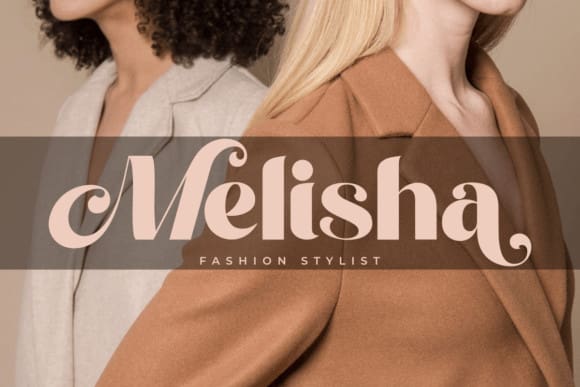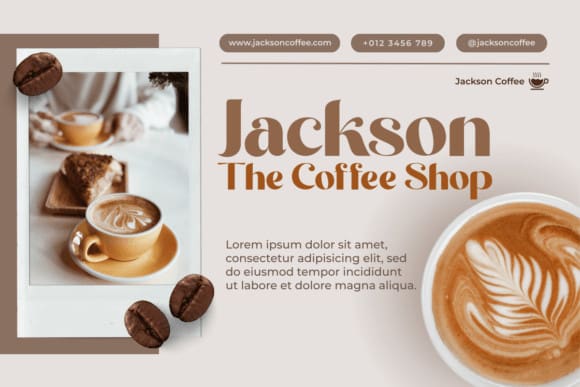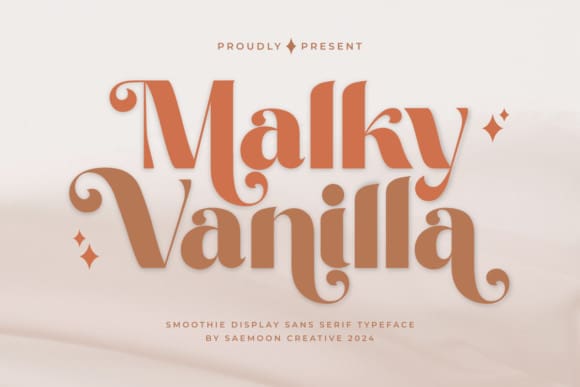
Malky Vanilla Font
Malky Vanilla Font – a state-of-the-art sans serif display typeface engineered to create striking headlines and bold branding. Its gracefully sleek lines radiate an unmistakable elegance, while its audacious strokes demand notice in editorial spreads, posters and signage. Beyond its undeniable charm on print, Malky Vanilla also stars as a versatile genius in digital worlds, promoting crystal-clear readability on screen, yet never compromising on its unique character.
Whether it’s for web design, logos, or packaging, Malky Vanilla seamlessly assimilates cutting-edge design and practicality – a quintessential choice for designers striving for a harmonious fusion of visual impact and legibility. We’re here to offer all the needed support. Should you encounter any issues or have any queries, rest assured, we’re more than ready to help.